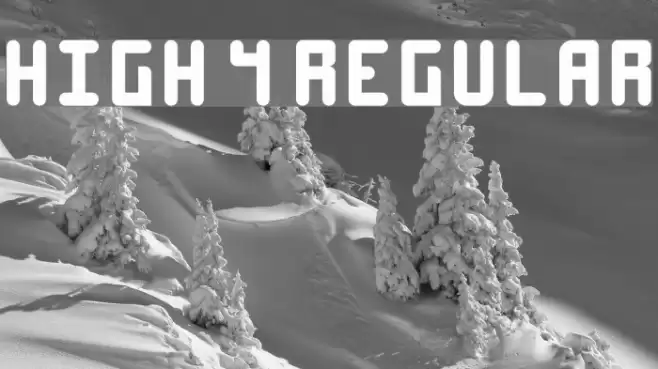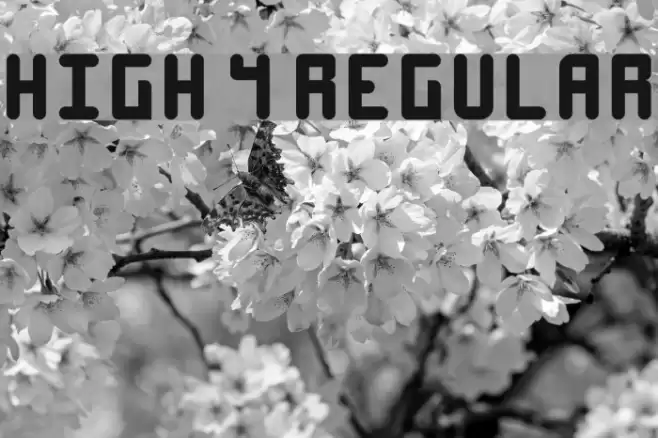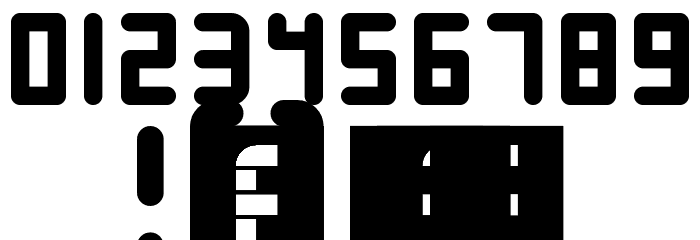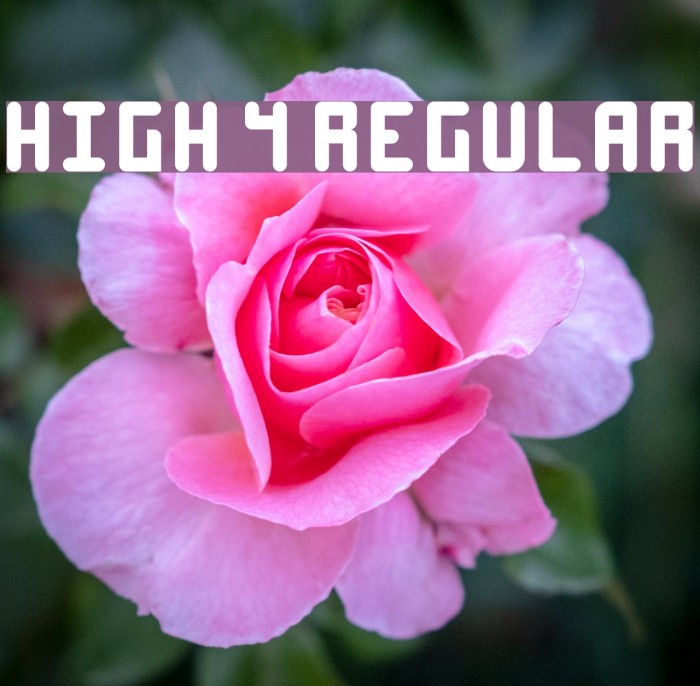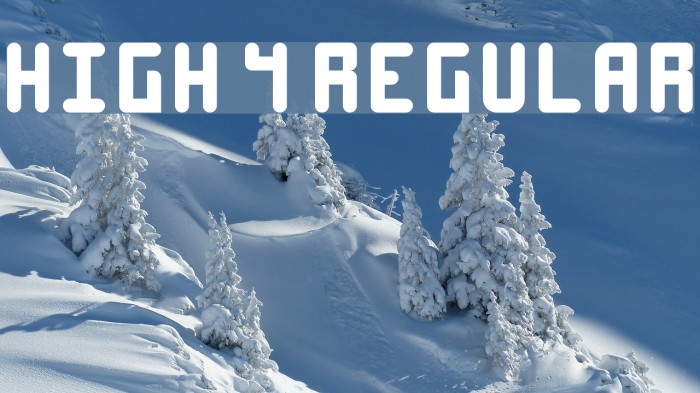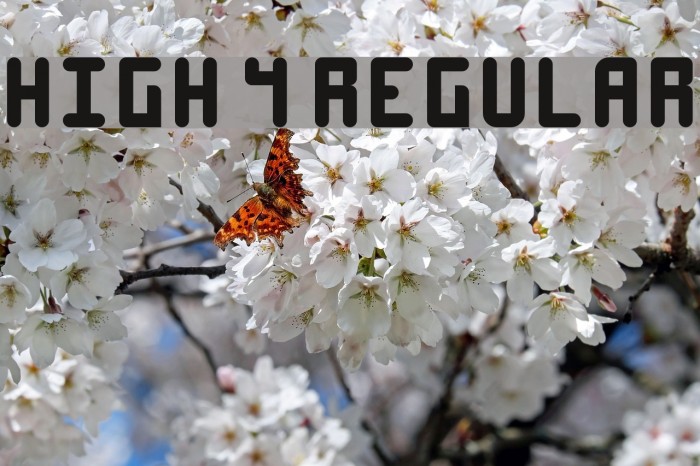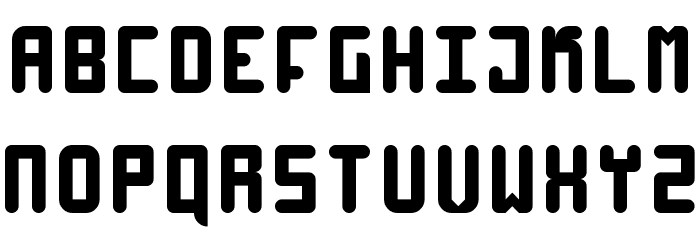
High 4 Regular Font
High 4 Regular Description
This font features a bold, geometric design with rounded edges, creating a modern and approachable appearance. The characters are uniformly structured, giving a sense of balance and stability. The uppercase and lowercase letters maintain a consistent height, enhancing readability. The numerals and special characters are designed to match the overall style, ensuring a cohesive look across all text elements. This font's clean lines and uniformity make it suitable for a variety of design applications.
A bold, geometric font with rounded edges and consistent structure from Uncategorized fonts.
- Proposed Projects: Ideal for branding, signage, posters, and digital interfaces where a modern and friendly look is desired.
- Use Case: Headlines, Logos, Signage